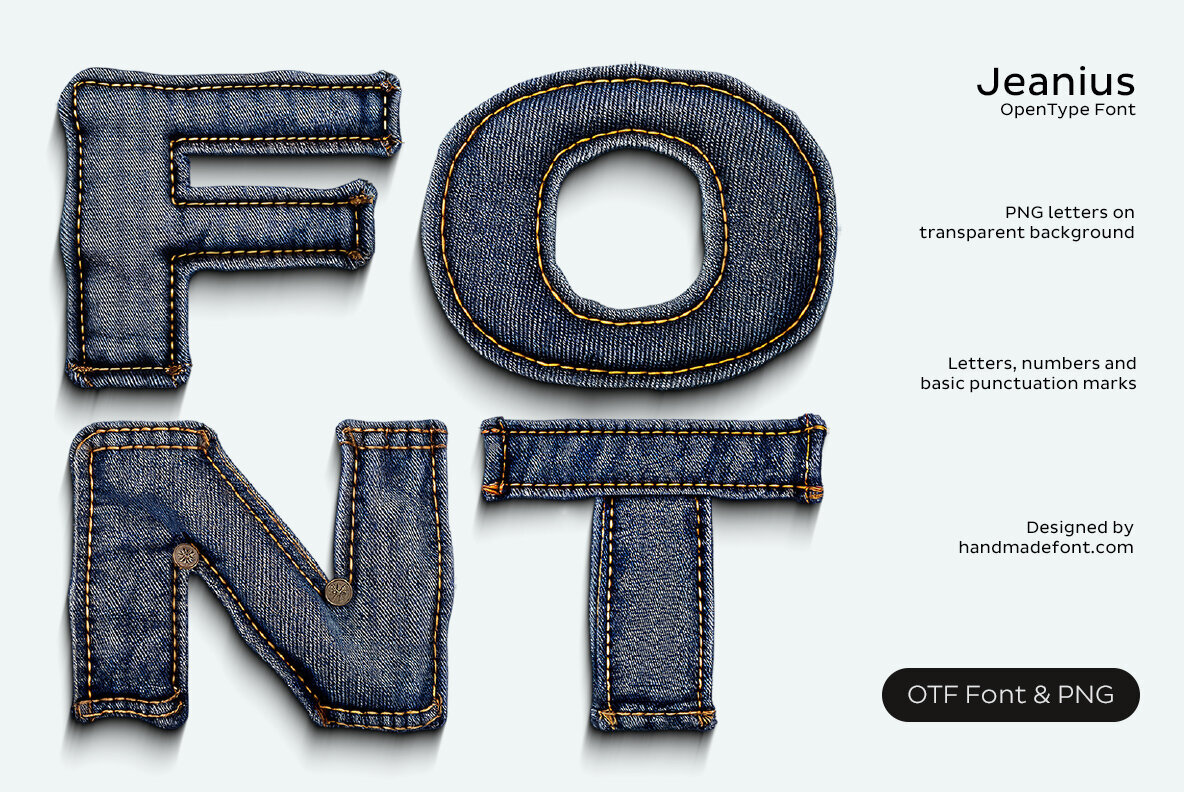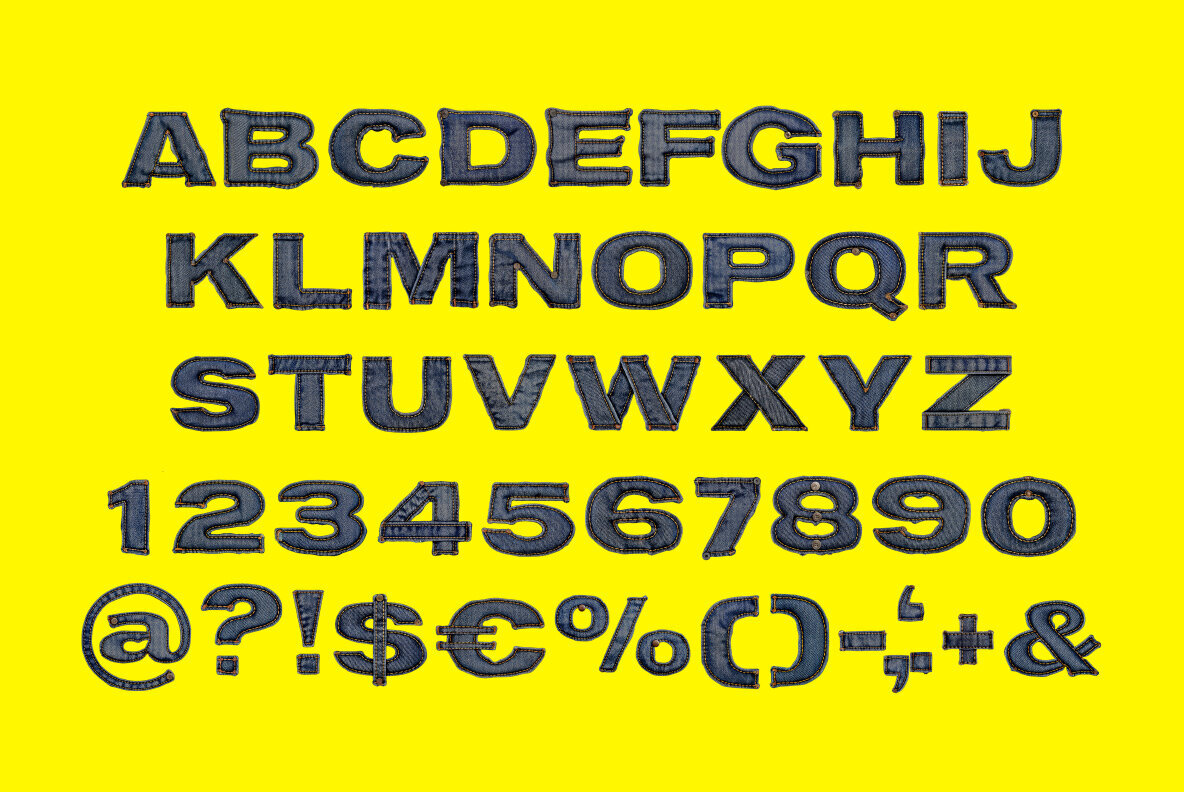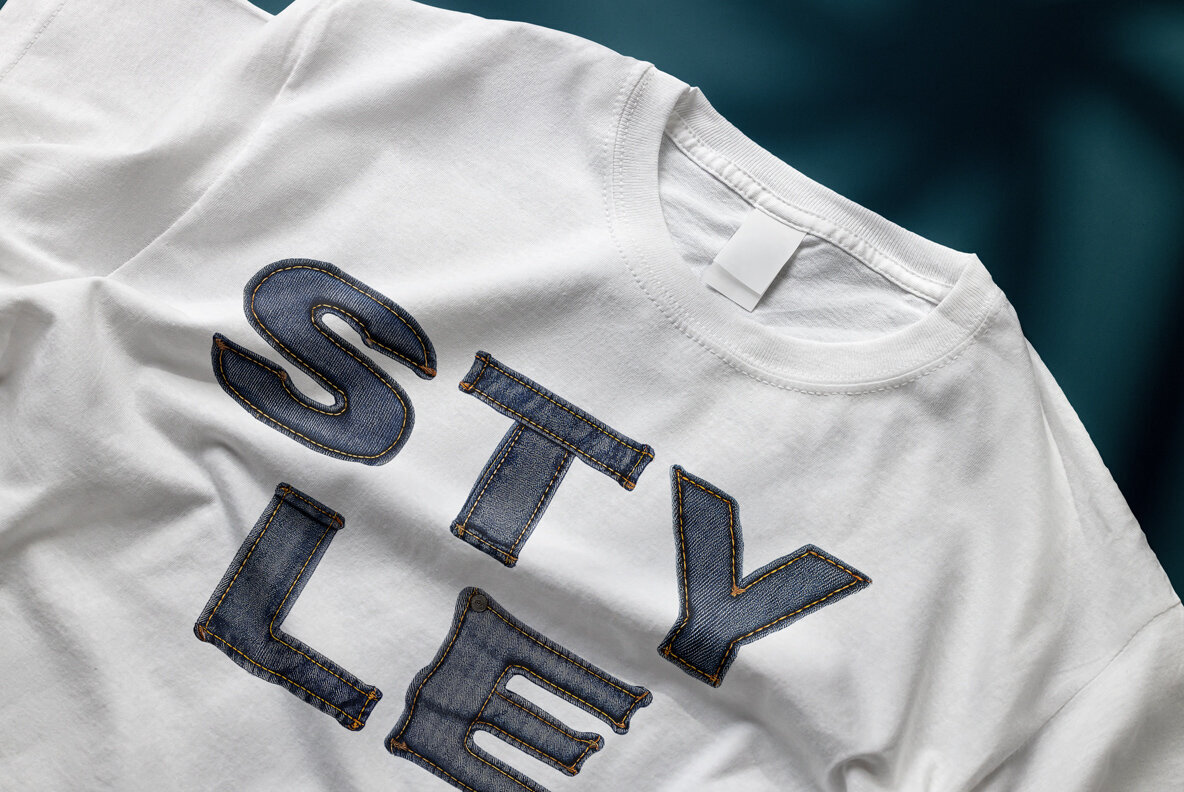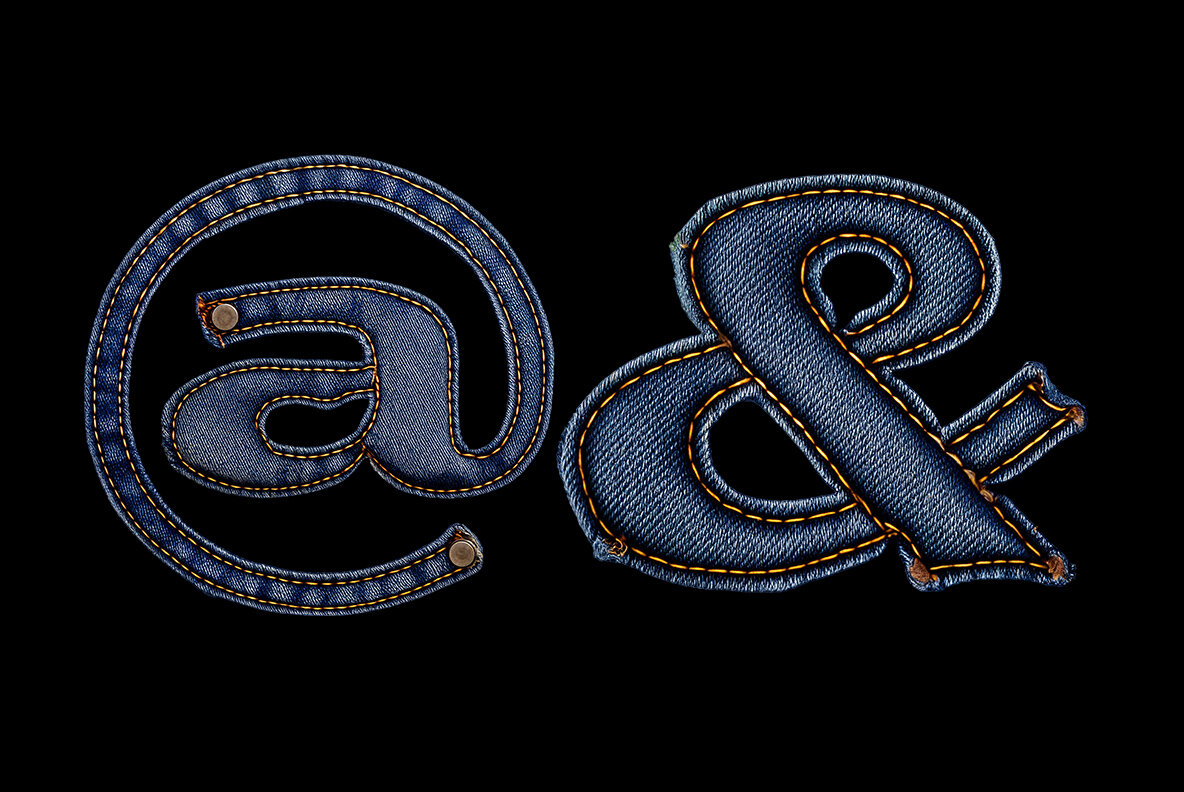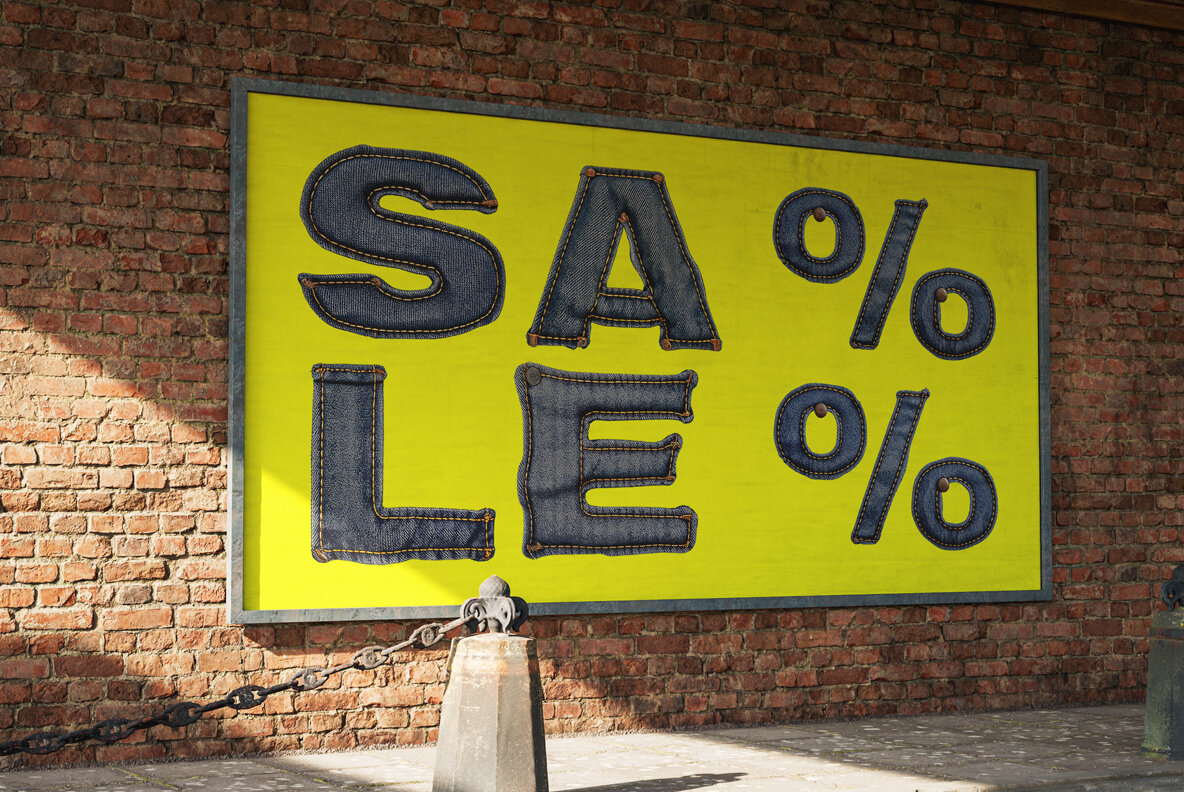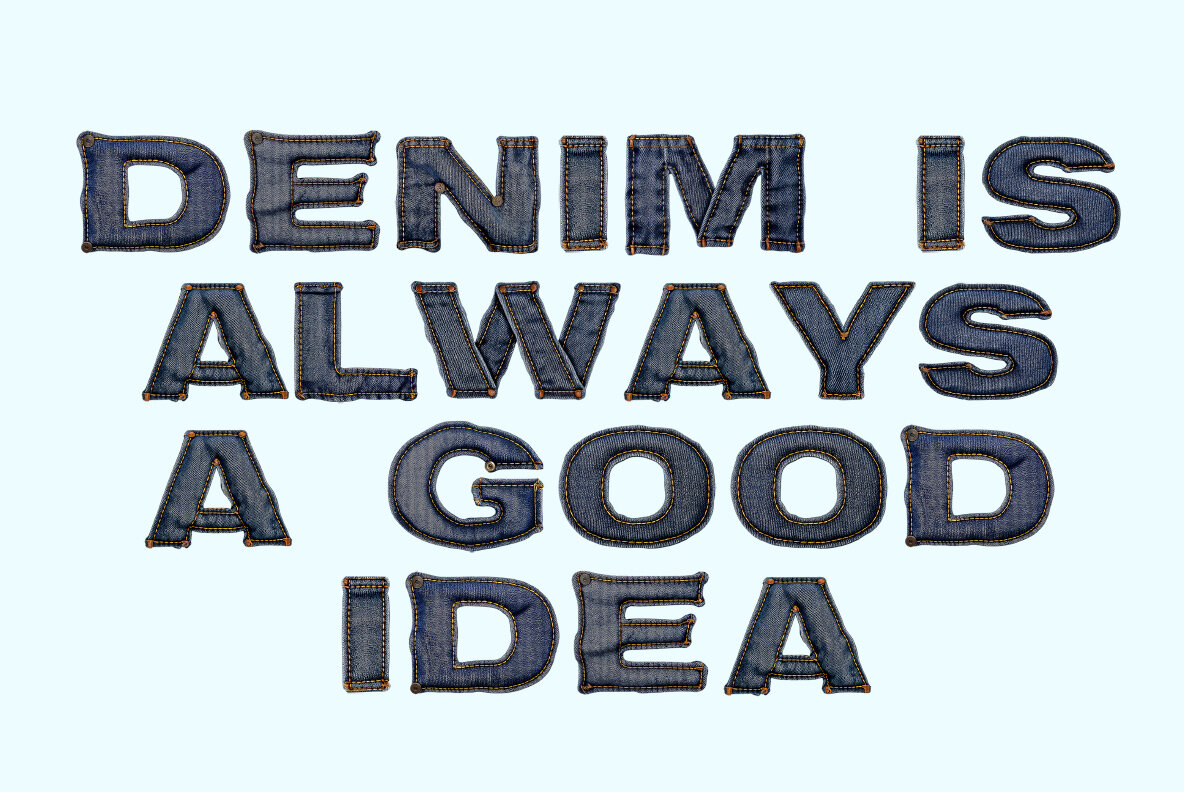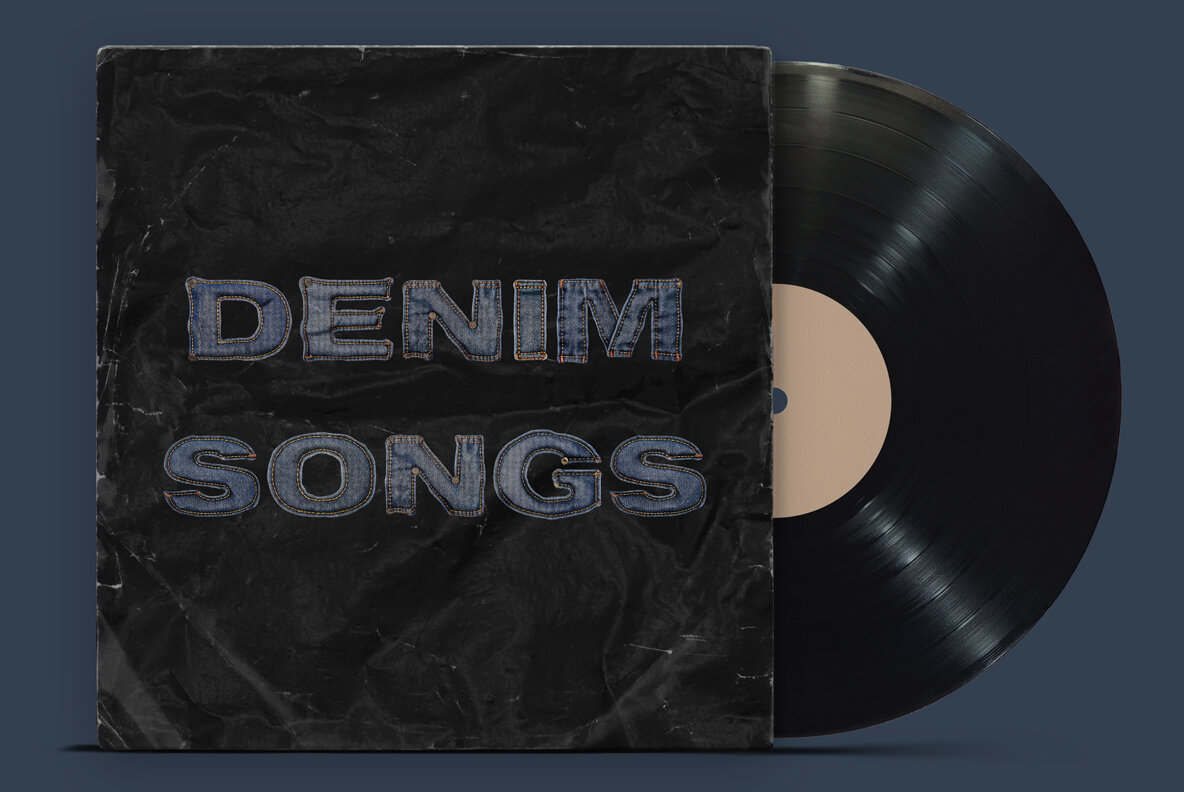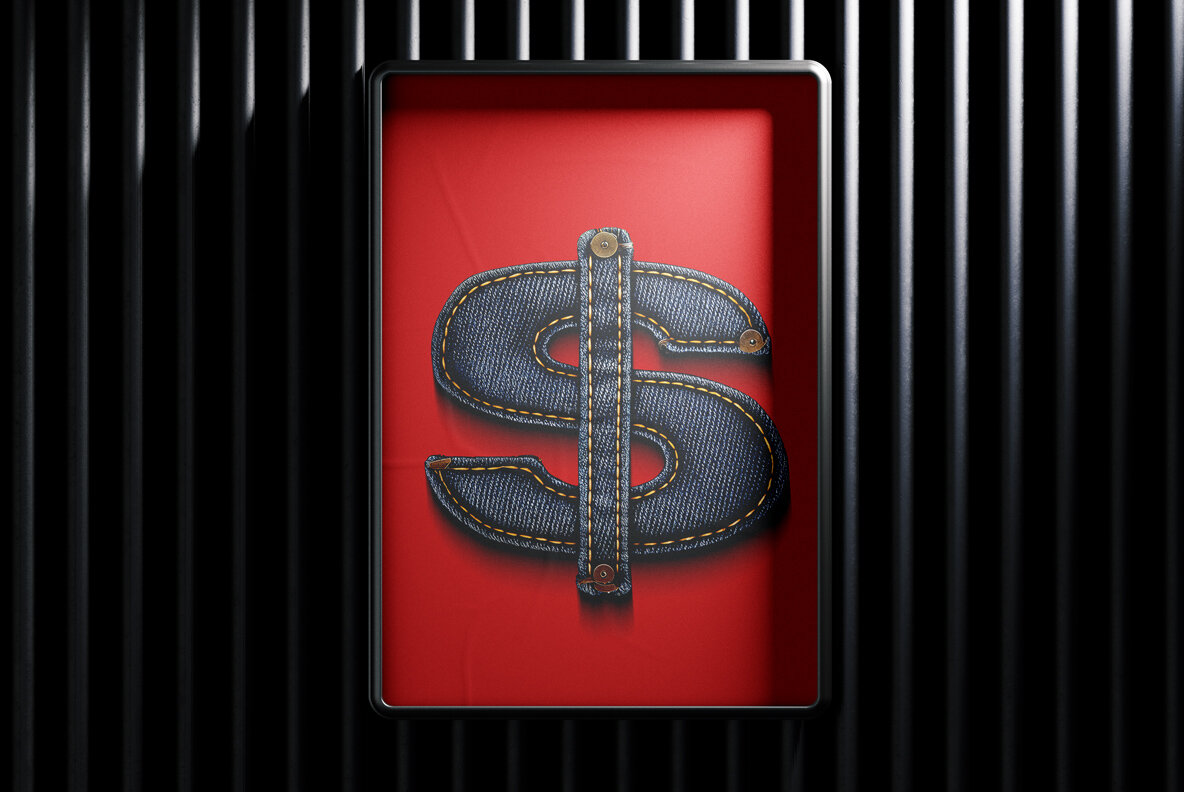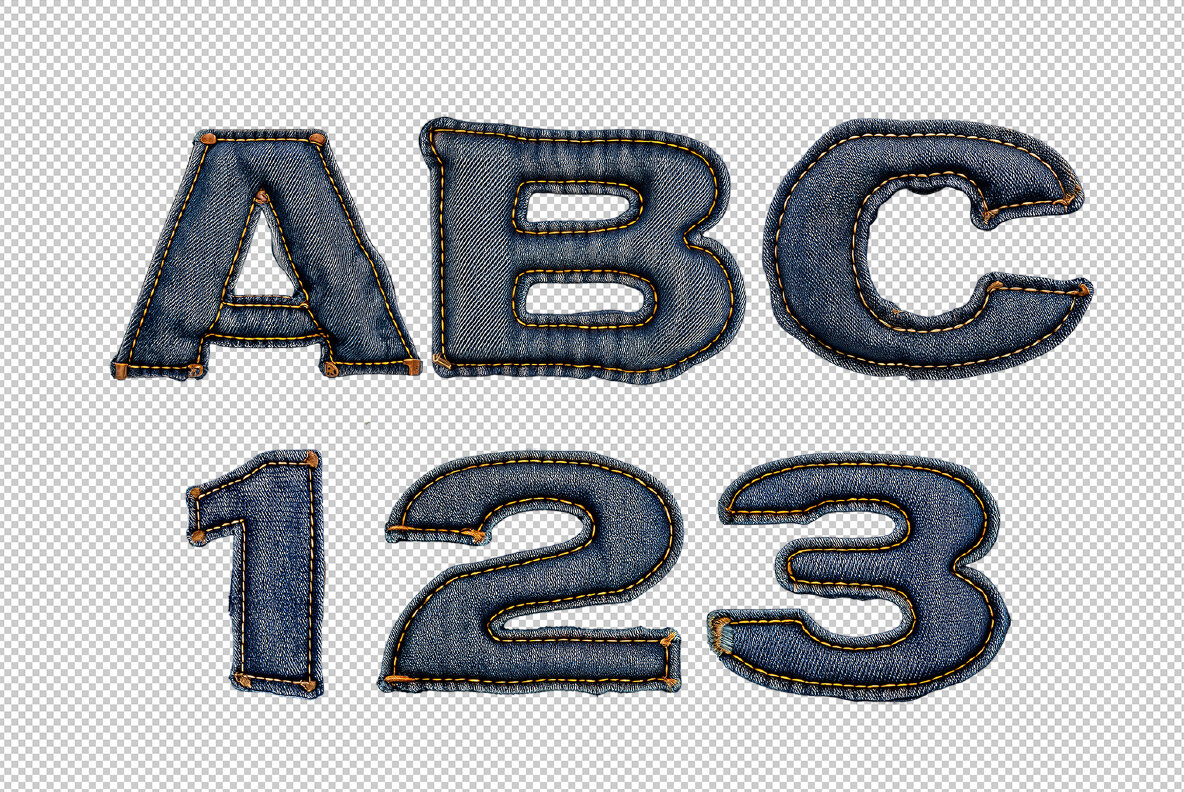
Embrace the rugged charm of Jeanius, a font that masterfully turns timeless denim into bold, stitched lettering. With its textured surfaces, neat seams, and stylish rivet details, each character evokes the feel of your favorite jeans—casual yet iconic. Jeanius is ideal for edgy branding, eye-catching ads, or any project that craves a relaxed and stylish vibe.Bold Creativity Meets Classic Denim